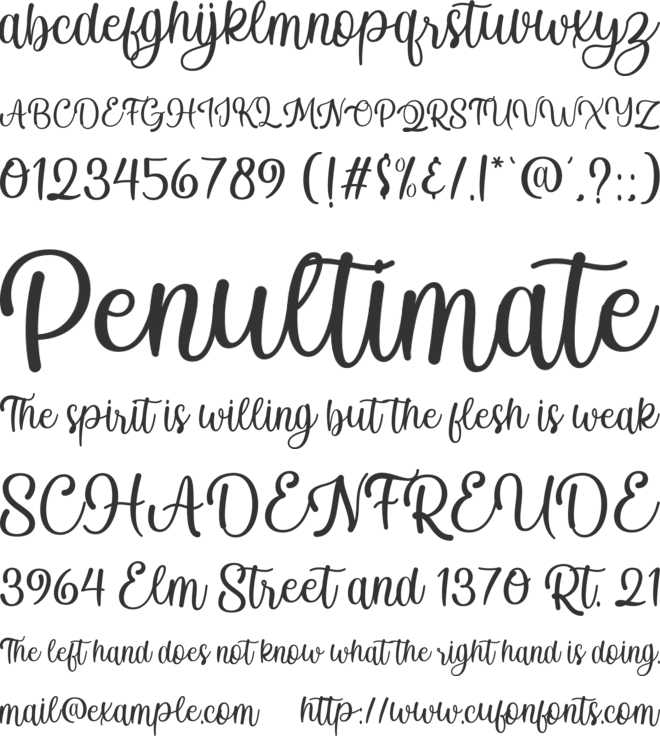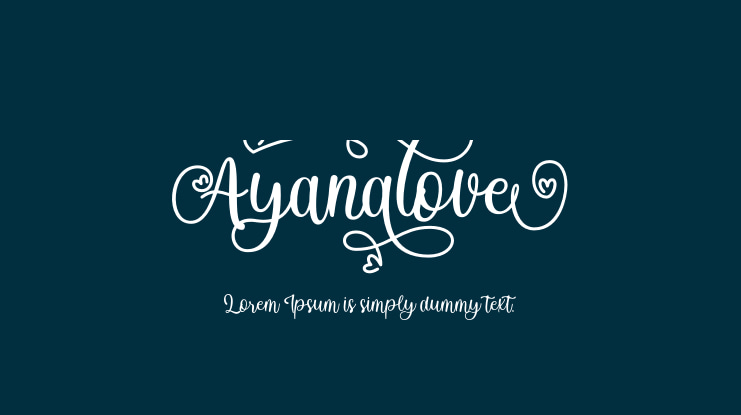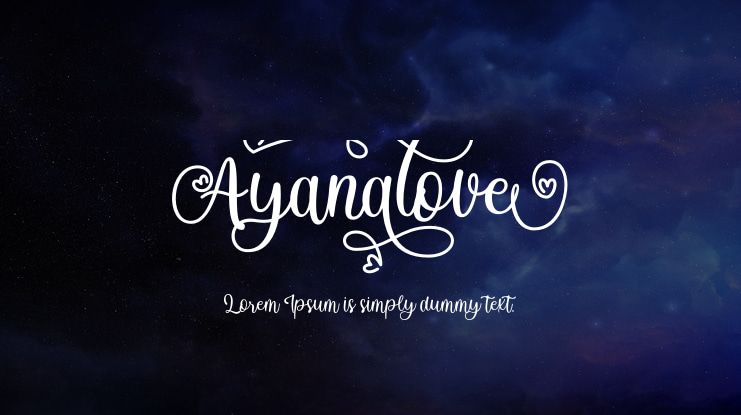
Ayanalove Font
Ayanalove is a sweet, all round and flexible script font. Warm, romantic and jolly, this font will turn each of your project ideas into real works of art. Ayanalove is PUA encoded which means you can access all of the amazing glyphs and ligatures with ease!